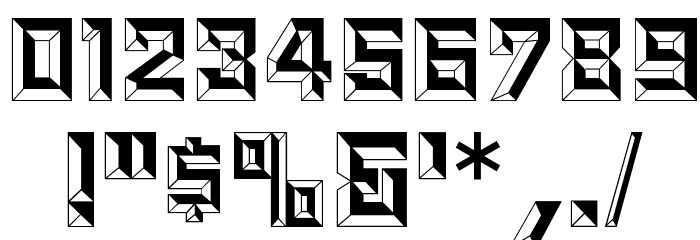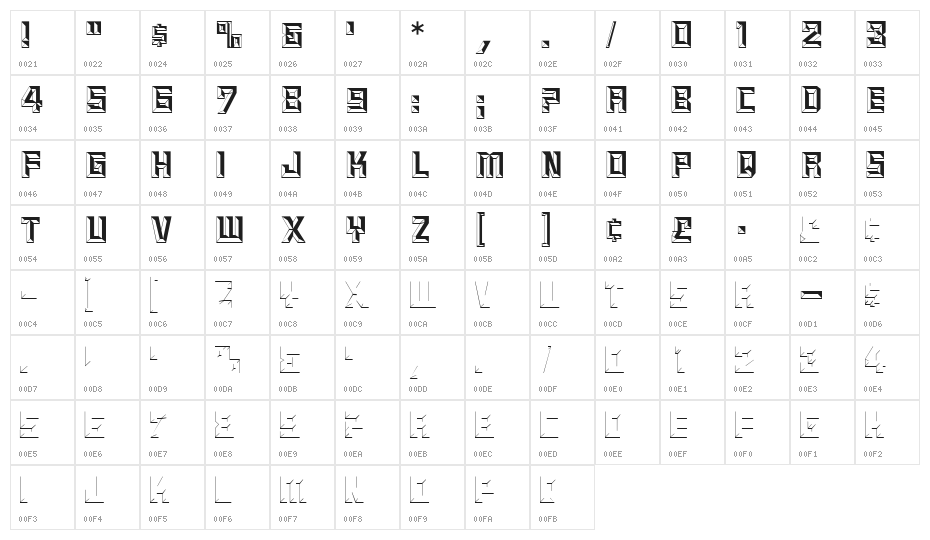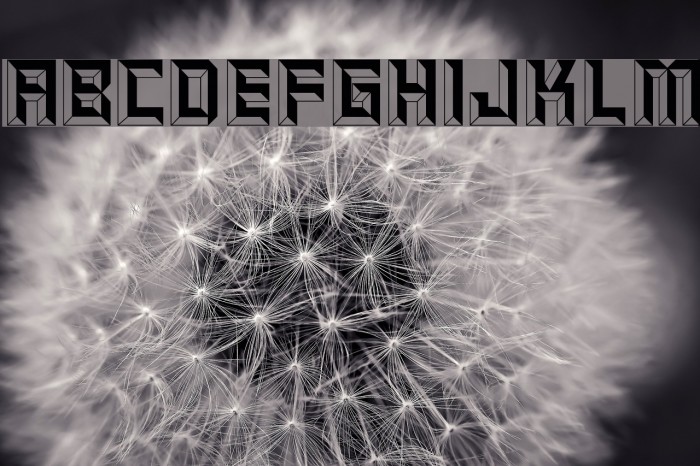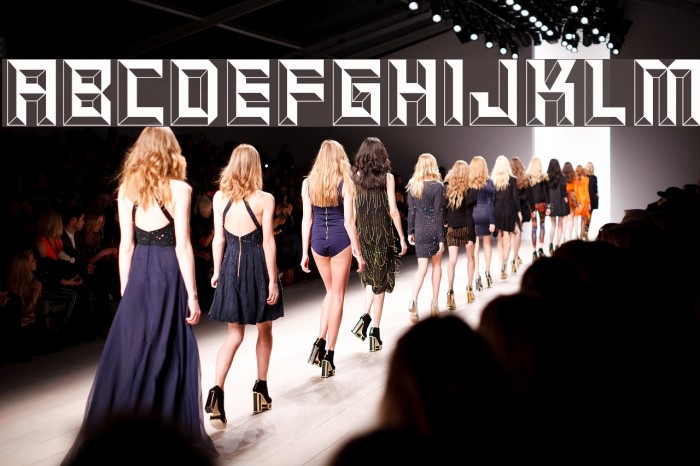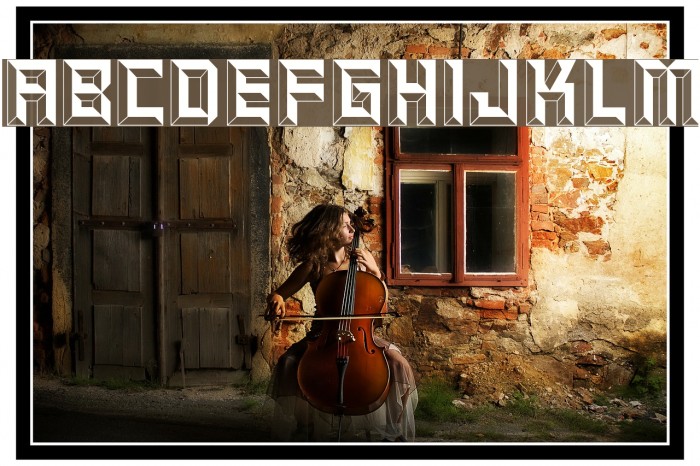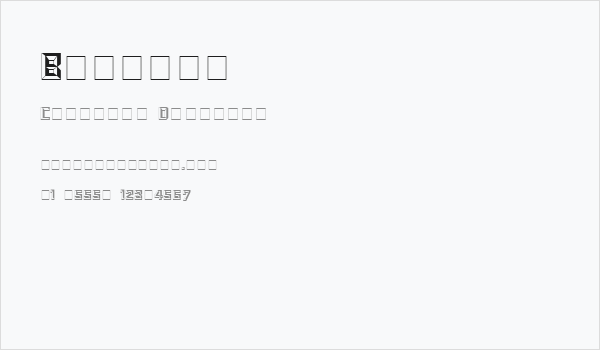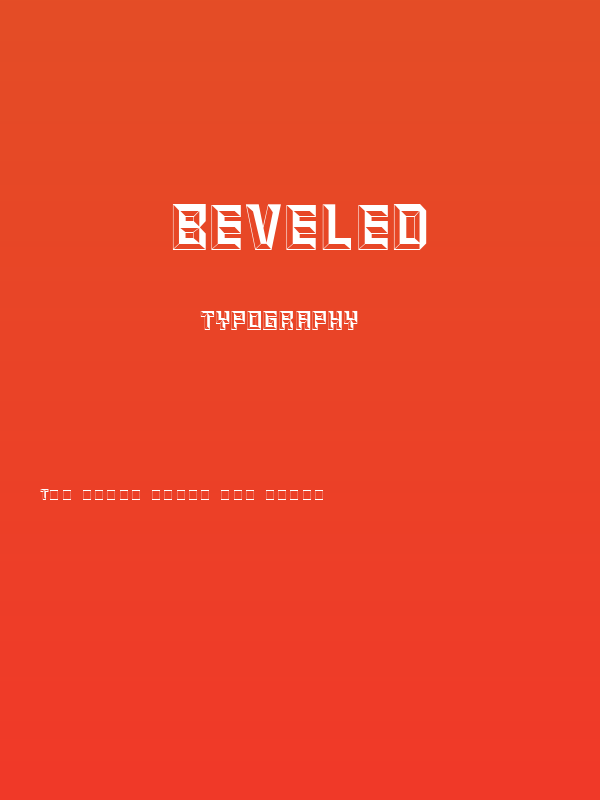
Beveled Font
Beveled Description
This font features a bold, three-dimensional beveled design that gives each character a striking, sculptural appearance. The letters are constructed with sharp angles and distinct edges, creating a sense of depth and solidity. The use of shading enhances the 3D effect, making the characters appear as if they are carved from stone or metal. This style is highly decorative and eye-catching, suitable for making a strong visual impact. The uppercase and lowercase letters maintain a consistent style, with numerals and special characters following the same design principles. The overall look is modern and industrial, with a touch of vintage flair due to the beveled edges.
| Proposed Projects | Ideal for logos, posters, headlines, and any design requiring a bold, impactful statement. |